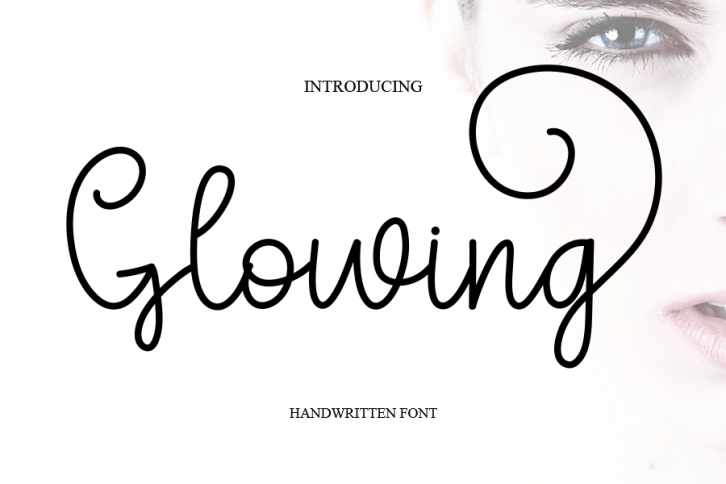
Glowing is a delicate and romantic font featuring the perfect amount of trendiness. Whether you’re using it for crafting, digital designing, presentations, or greeting card making, it’s perfect!